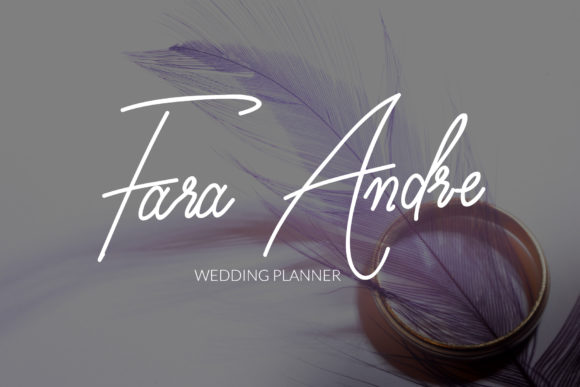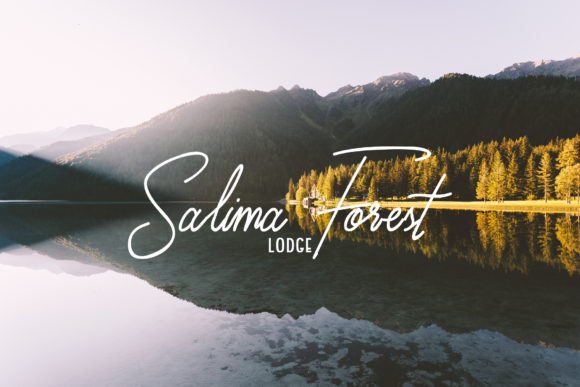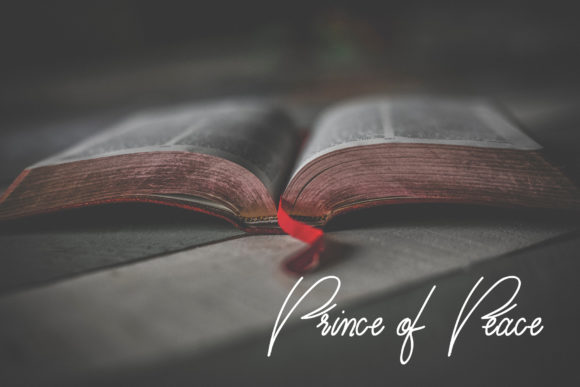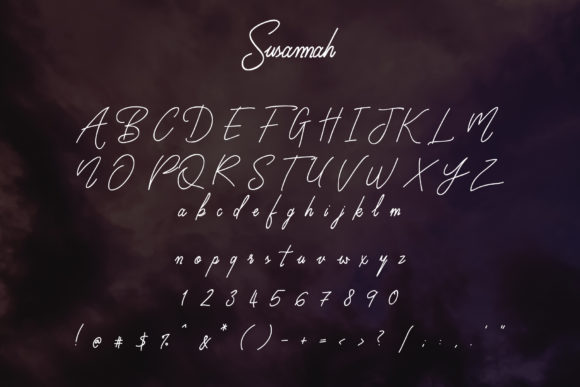
Susannah Font
About Susannah Font
Say hello and fall in love with Susannah. This great font can be used for signatures, wedding invitations, logos and much more.